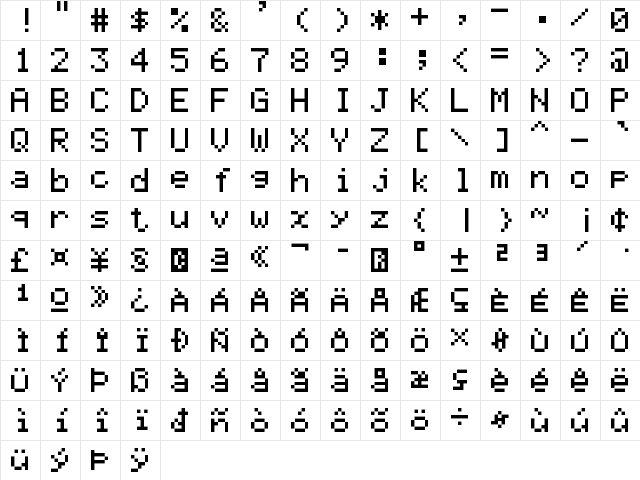
Casio fx-9860GII Regular
Design Context for Casio fx-9860GII Typeface
Casio fx-9860GII offers clean, dependable letterforms without strong stylistic allegiance, making it a practical choice for designers who need flexibility.